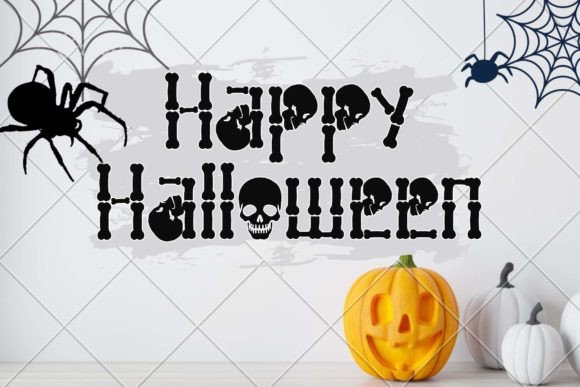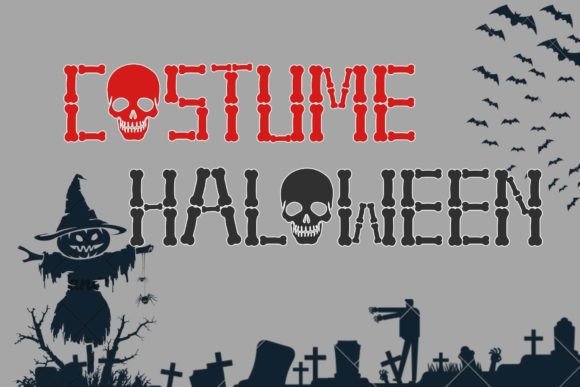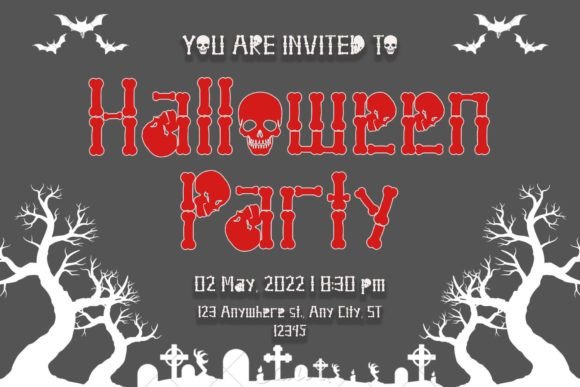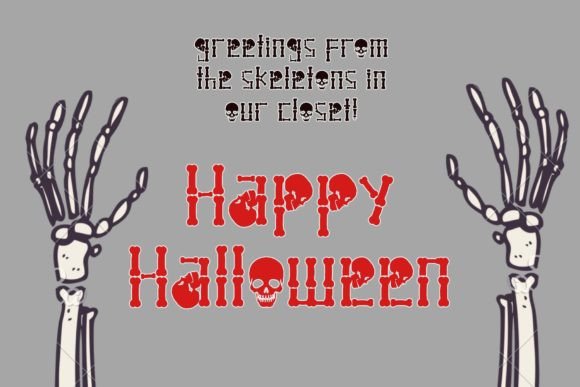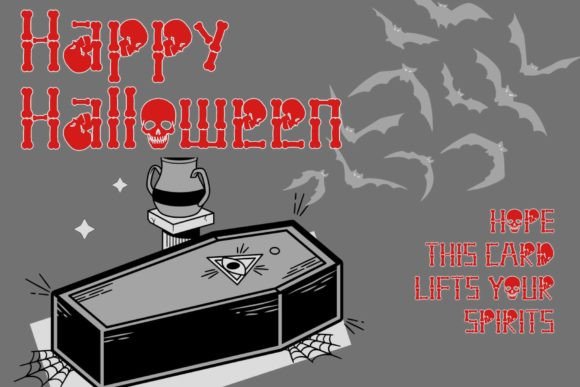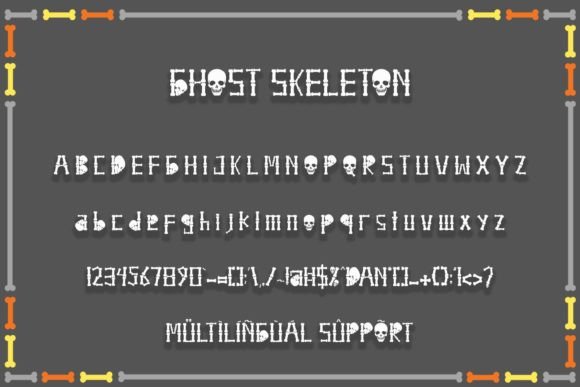
Introduction to Ghost Skeleton Font
Halloween fonts such as Ghost Skeleton are great for making Halloween parties fun.
It’s also the perfect addition to your next designs, making it easy to create something you can use to make people smile at night .
Key Features of Ghost Skeleton Font
Why Choose Ghost Skeleton Font?
Ghost Skeleton Font offers exceptional quality and versatility, making it a valuable addition to your design toolkit. Whether you’re creating for personal projects or commercial use, Ghost Skeleton Font delivers professional results.